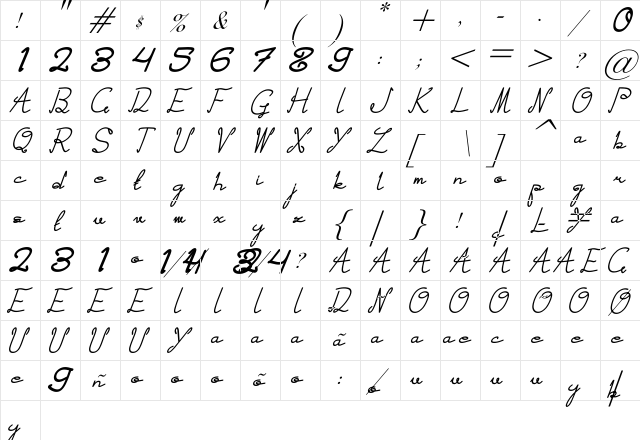
kebumen Regular
Design Context for kebumen Typeface
kebumen takes a measured approach to typography — its balanced proportions and neutral character make it a reliable workhorse for both digital and print work.